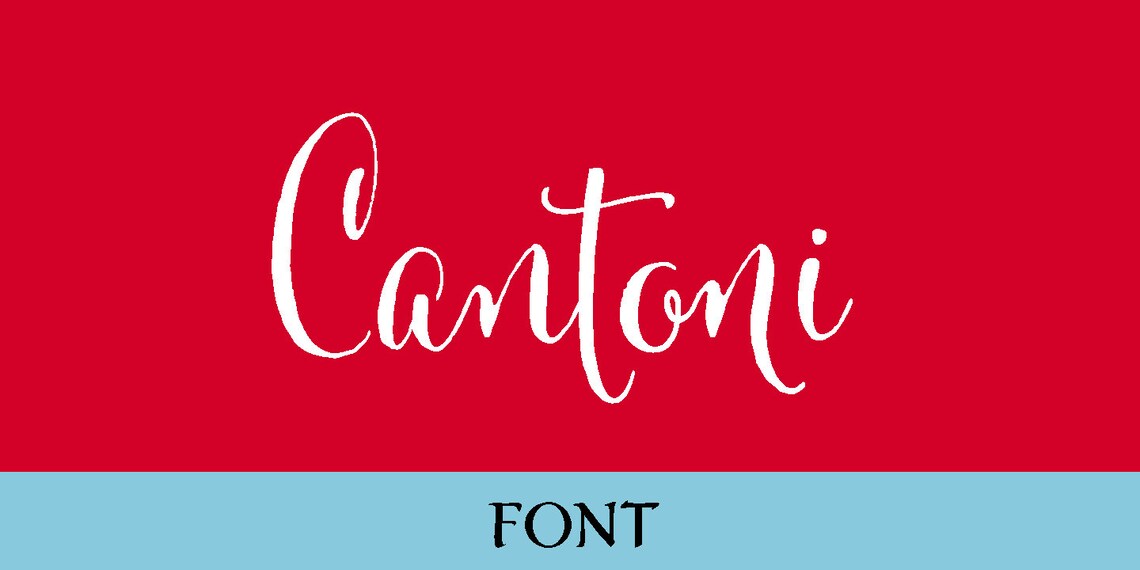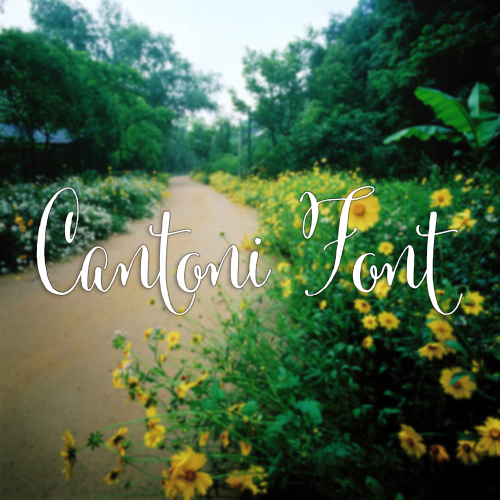
Cantoni Free Font Download . Web check her out in her crib: Cantoni font family is a hand lettered typeface with a variety of standard and alternate characters that play together well.
Web cantoni font is a famous fresh calligraphy typeface that was released by debi sementelli type foundry. Web explore cantoni designed by debi sementelli at adobe fonts. Web the cantoni font family is a hand lettered font with a variety of standard and alternate characters that play together well.
Web explore cantoni designed by debi sementelli at adobe fonts. Cinque donne the cantoni font family is a hand lettered font with a variety of standard and alternate characters that play. Cantoni font family is a hand lettered typeface with a variety of standard and alternate characters that play together well. Web the cantoni font family is a hand lettered font with a variety of standard and alternate characters that play together well.
Cantoni Free Font Download - Web cantona script à € by mans greback. 24,530 downloads (2 yesterday) free for personal use. Web cantoni font is a famous fresh calligraphy typeface which was released by debi sementelli type foundry. Web check her out in her crib: Cinque donne the cantoni font family is a hand lettered font with a variety of standard and alternate characters that.
Cantoni Free Font Download - Web check her out in her crib: Web cantoni font is a famous fresh calligraphy typeface which was released by debi sementelli type foundry. Web explore cantoni designed by debi sementelli at adobe fonts. Web cantoni font is a famous fresh calligraphy typeface that was released by debi sementelli type foundry. 24,530 downloads (2 yesterday) free for personal use.
Cantoni Free Font Download - Web cantoni font is a famous fresh calligraphy typeface that was released by debi sementelli type foundry. Web explore cantoni designed by debi sementelli at adobe fonts. Web the cantoni font family is a hand lettered font with a variety of standard and alternate characters that play together well. Web cantona script à € by mans greback. Web check her.
Cantoni Free Font Download - Web cantona script à € by mans greback. Web cantoni font is a famous fresh calligraphy typeface which was released by debi sementelli type foundry. A typeface with 5 styles, available from adobe fonts for sync and. Web cantoni font is a famous fresh calligraphy typeface that was released by debi sementelli type foundry. Cantoni font family is a hand.
Cantoni Free Font Download - A typeface with 5 styles, available from adobe fonts for sync and. Web cantoni font is a famous fresh calligraphy typeface which was released by debi sementelli type foundry. Cinque donne the cantoni font family is a hand lettered font with a variety of standard and alternate characters that play. 24,530 downloads (2 yesterday) free for personal use. Web check.
Cantoni Free Font Download - 24,530 downloads (2 yesterday) free for personal use. Cinque donne the cantoni font family is a hand lettered font with a variety of standard and alternate characters that play. Web explore cantoni designed by debi sementelli at adobe fonts. Web check her out in her crib: Web cantona script à € by mans greback.
Cantoni Free Font Download - Cinque donne the cantoni font family is a hand lettered font with a variety of standard and alternate characters that play. Web check her out in her crib: Web cantoni font is a famous fresh calligraphy typeface that was released by debi sementelli type foundry. Web the cantoni font family is a hand lettered font with a variety of standard.
Cantoni Free Font Download - 24,530 downloads (2 yesterday) free for personal use. A typeface with 5 styles, available from adobe fonts for sync and. Cantoni font family is a hand lettered typeface with a variety of standard and alternate characters that play together well. Web cantona script à € by mans greback. Cinque donne the cantoni font family is a hand lettered font with.
Cantoni Free Font Download - Cantoni font family is a hand lettered typeface with a variety of standard and alternate characters that play together well. Web explore cantoni designed by debi sementelli at adobe fonts. Cinque donne the cantoni font family is a hand lettered font with a variety of standard and alternate characters that play. Web the cantoni font family is a hand lettered.
Cantoni Free Font Download - Web the cantoni font family is a hand lettered font with a variety of standard and alternate characters that play together well. Cantoni font family is a hand lettered typeface with a variety of standard and alternate characters that play together well. 24,530 downloads (2 yesterday) free for personal use. Web cantoni font is a famous fresh calligraphy typeface that.
Cantoni Free Font Download - Cantoni font family is a hand lettered typeface with a variety of standard and alternate characters that play together well. Cinque donne the cantoni font family is a hand lettered font with a variety of standard and alternate characters that play. Web the cantoni font family is a hand lettered font with a variety of standard and alternate characters that.